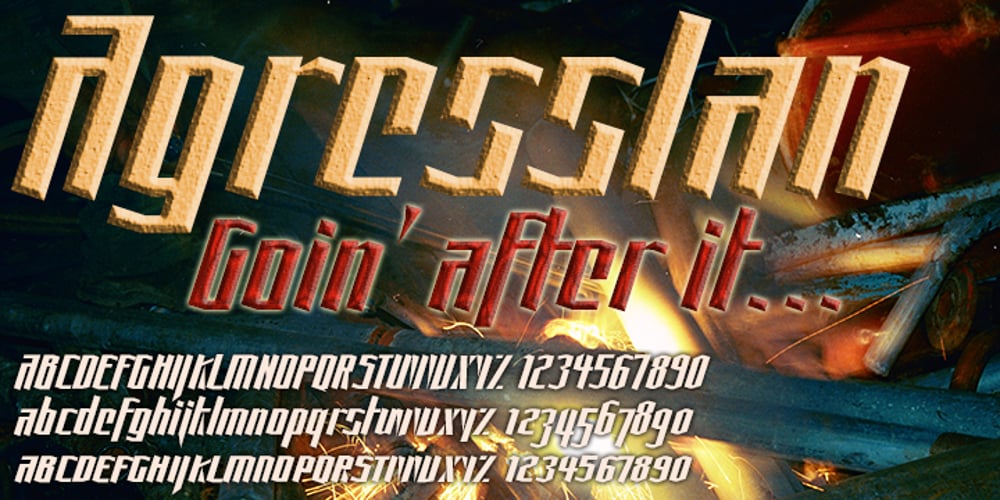
AggressIan Font Family was designed by David Bergsland and published by Hackberry Font Foundry. AggressIan contains 1 styles and family package options. AggressIan is the release of the first font I ever drew. It was done by hand with triangle and parallel rule back in the mid-1980s. I originally called it Aggressor, but I never liked it. My local type designer friend, Ian Roberts, really likes this type of drawing and told me I had to release it. So I named it after him. The small caps should work well if you need a bolder version. It has oldstyle and lining figures, plus the small cap figures. I hope you like it.